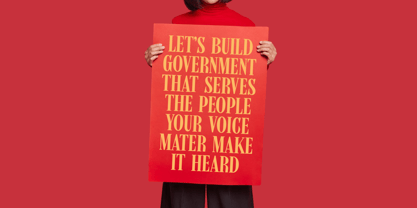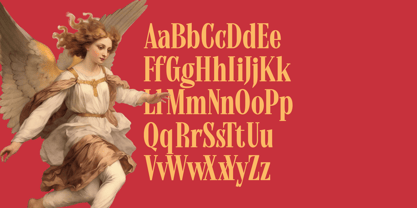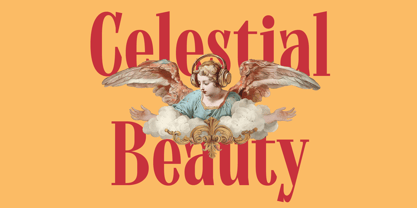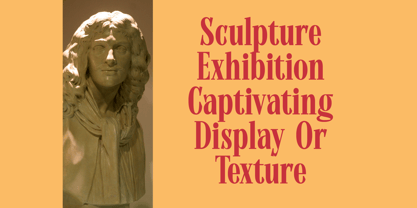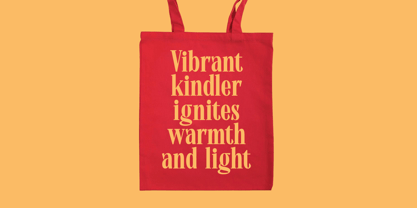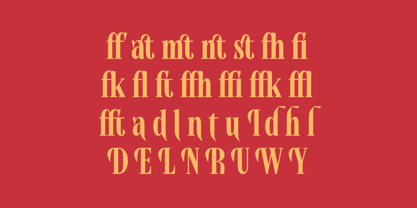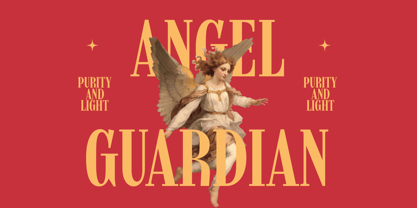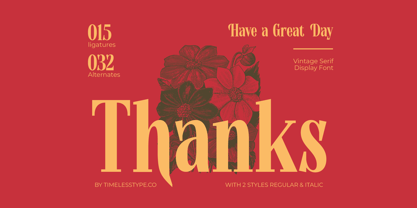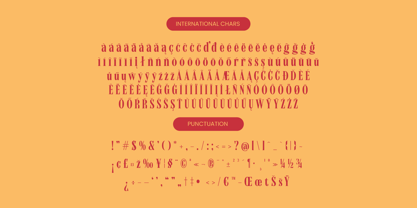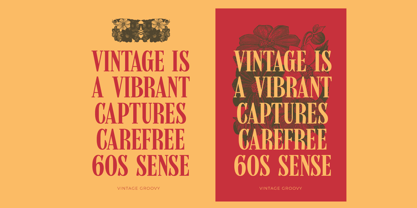
Bromtiz
by Timelesstype Studio
The Bromtiz Font Family was designed by Heru Utama Putra and published by Timelesstype Studio. Bromtiz contains 2 styles and family package options.
Bromtiz - Vintage Serif Display Font , from Timelesstype , Suitable for any projects such as: logos, branding projects, homeware designs, product packaging, mugs, quotes, posters, shopping bags, t-shirts, book covers, name card, invitation cards, greeting cards, label, photography, watermark, special events, and all your other luxury and beautiful projects that need a Luxury Serif taste.